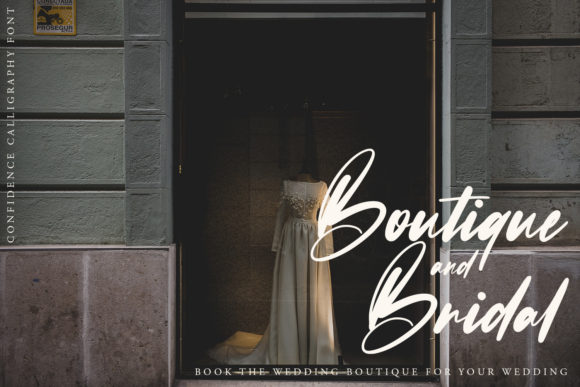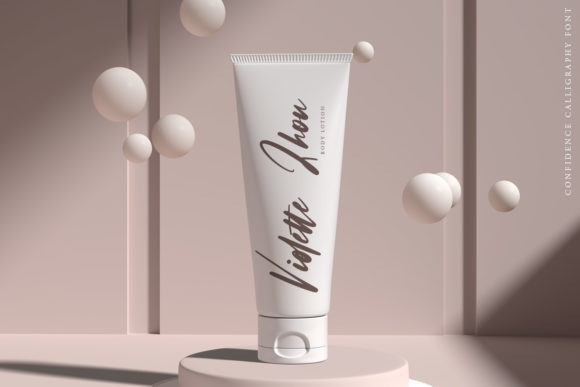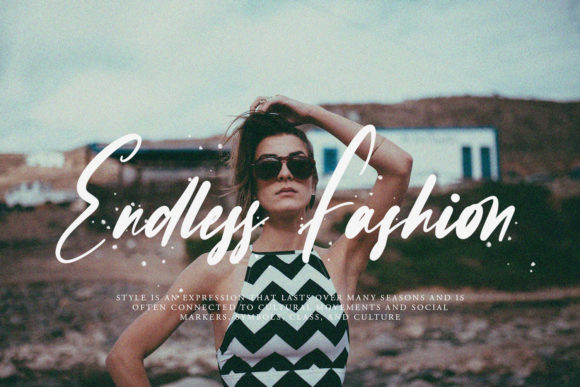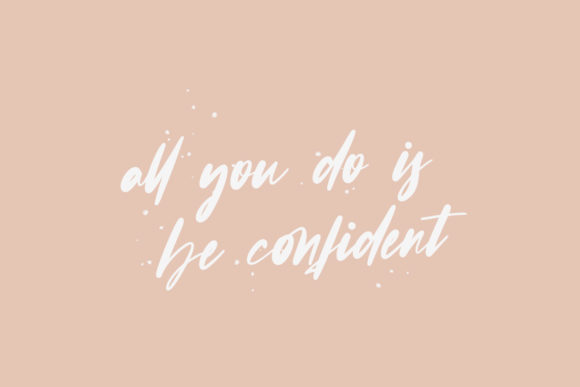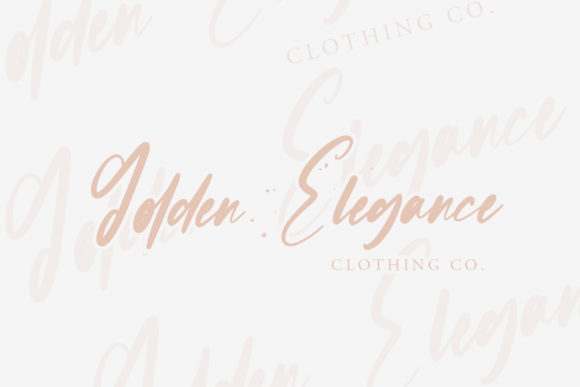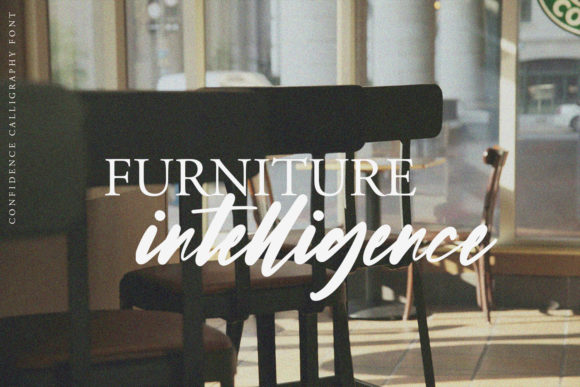
Introducing Confidence Font: The Ultimate Choice for Bold and Creative Designs
Are you tired of using the same old fonts for your designs? Do you want to make a statement and stand out from the crowd? Look no further than Confidence Font, a bold and flowing handwritten font that’s perfect for creating original and outstanding designs. In this article, we’ll explore the features and benefits of Confidence Font, and why it’s a must-have for designers and crafters.
What is Confidence Font?
Confidence Font is a unique and stylish handwritten font that’s designed to make a statement. With its bold and flowing strokes, this font is perfect for creating eye-catching designs that demand attention. Whether you’re working on a logo, a poster, or a social media graphic, Confidence Font is the perfect choice for adding a touch of personality and flair to your work.
Key Features of Confidence Font
- Bold and Flowing Strokes: Confidence Font features bold and flowing strokes that give it a unique and stylish look.
- Handwritten Style: This font has a handwritten style that’s perfect for creating personal and relatable designs.
- Easy to Read: Despite its bold and flowing strokes, Confidence Font is easy to read and understand, making it perfect for use in a variety of design projects.
- Versatile: Confidence Font can be used in a variety of design projects, from logos and posters to social media graphics and more.
Benefits of Using Confidence Font
So why should you choose Confidence Font for your designs? Here are just a few benefits of using this amazing font:
- Adds Personality to Your Designs: Confidence Font adds a touch of personality and flair to your designs, making them stand out from the crowd.
- Perfect for Creative Projects: This font is perfect for creative projects, such as logos, posters, and social media graphics.
- High-Quality: This font is high-quality and designed to look great in any design project.
Tips and Tricks for Using Confidence Font
Here are a few tips and tricks for using Confidence Font:
- Use it as a Title Font: Use Confidence Font as a title font to add a touch of personality and flair to your designs.
- Pair it with Other Fonts: Pair Confidence Font with other fonts to create a unique and stylish look.
- Experiment with Colors: Experiment with different colors to find the perfect look for your design.
In conclusion, Confidence Font is a bold and flowing handwritten font that’s perfect for making original and outstanding designs. With its unique and stylish strokes, this font is sure to add a touch of personality and flair to any design project. Whether you’re a designer or crafter, Confidence Font is a must-have font that’s sure to take your designs to the next level.